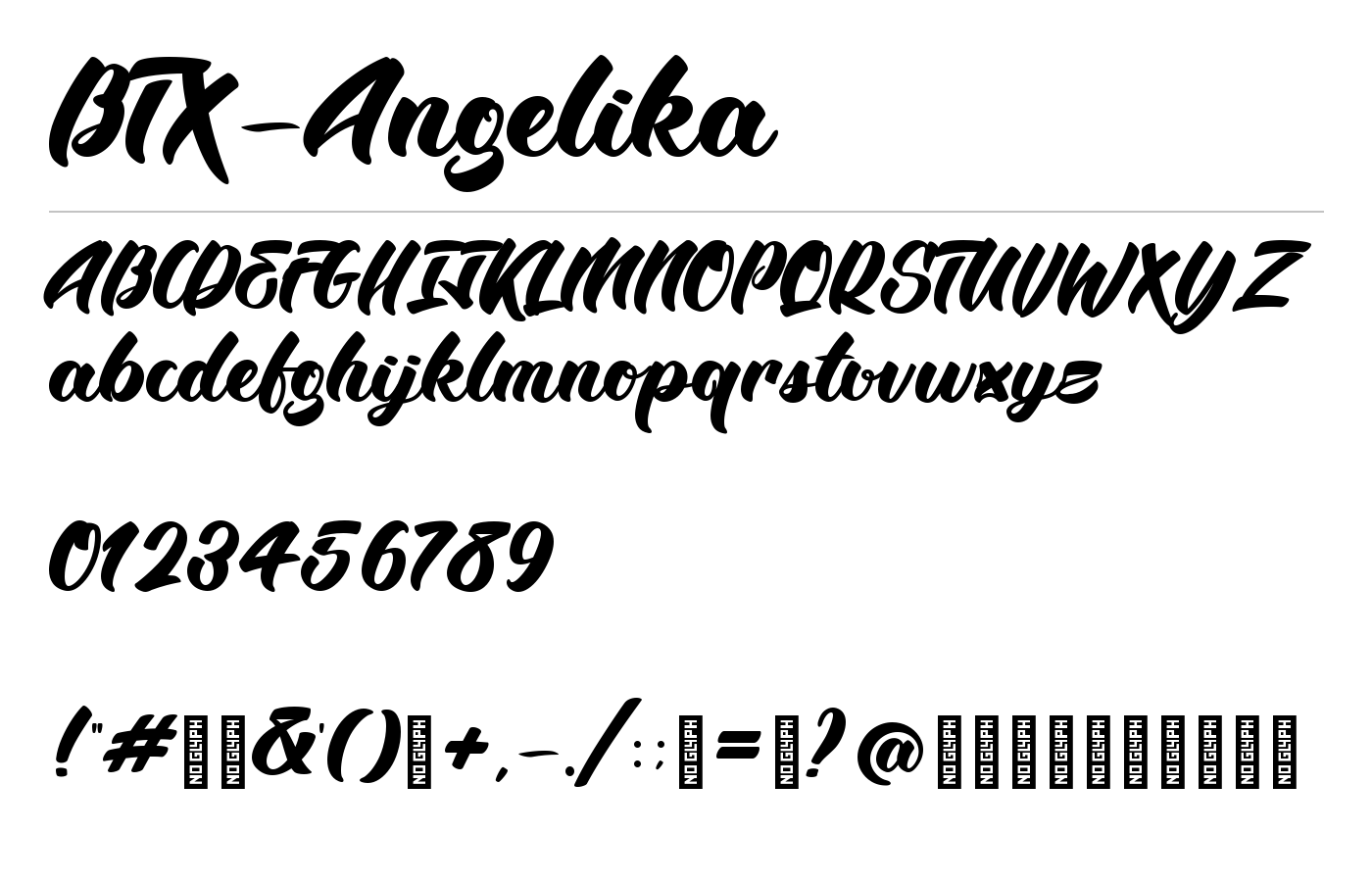
BTX-Angelika is a bold and lively brush script font with a strong, casual personality. Its thick, smooth strokes and dynamic letterforms give it an energetic, handwritten feel that works well for creative branding, informal invitations, and eye-catching headlines. This font shines in designs that want to convey warmth, friendliness, and a modern, artistic flair.